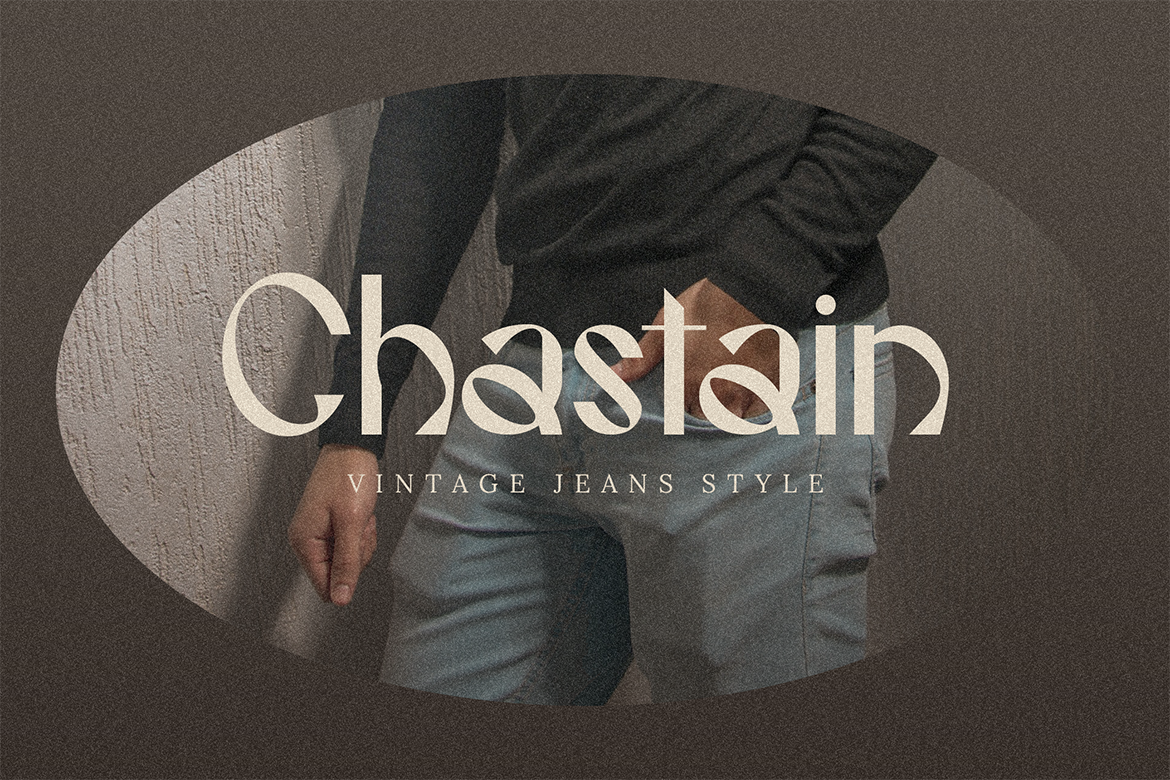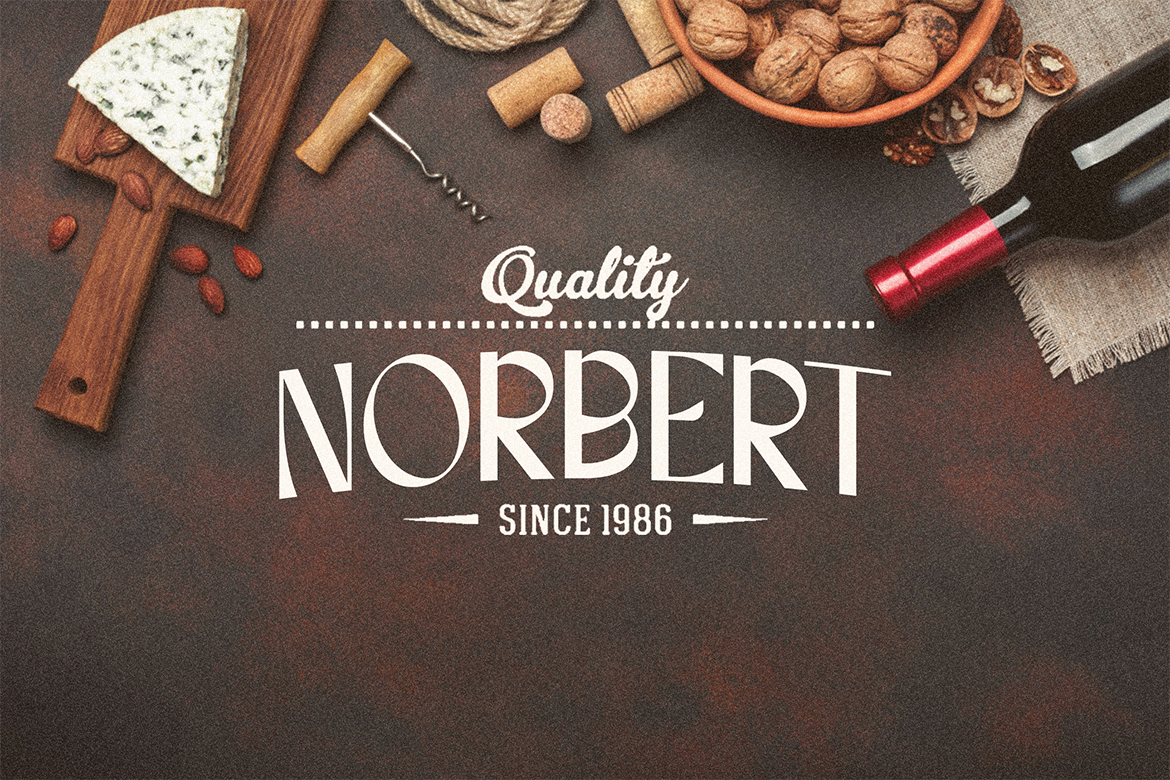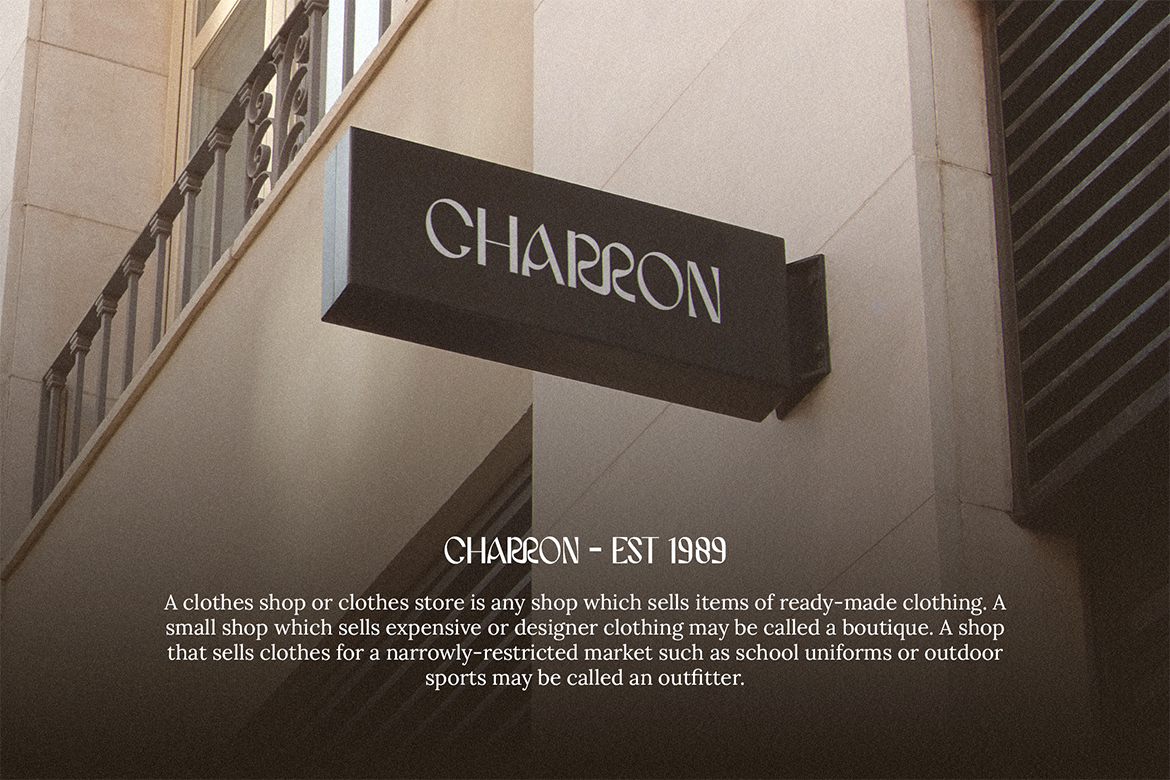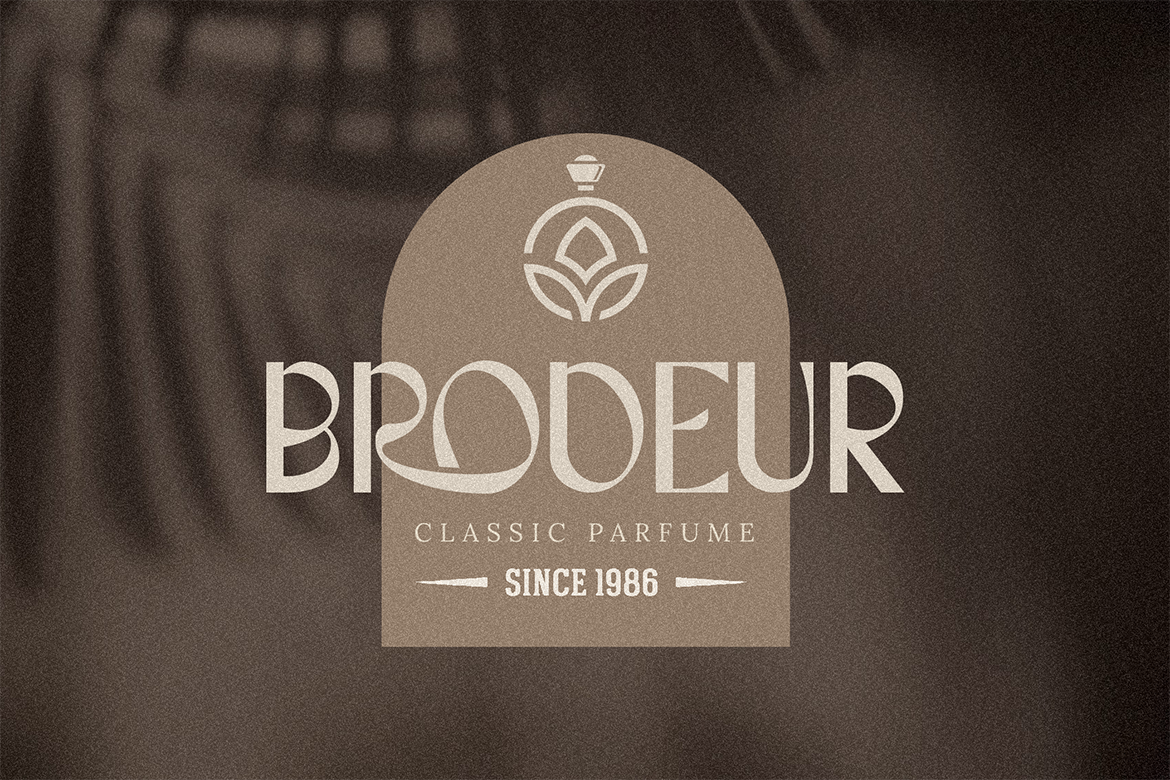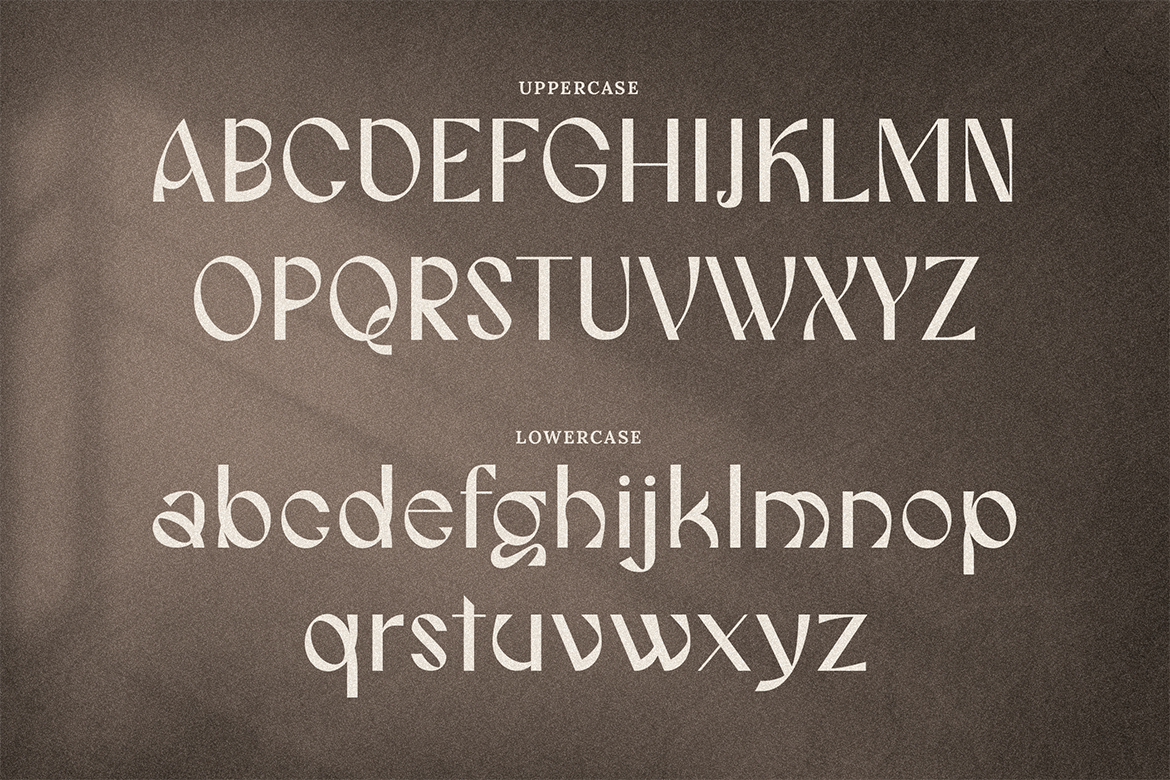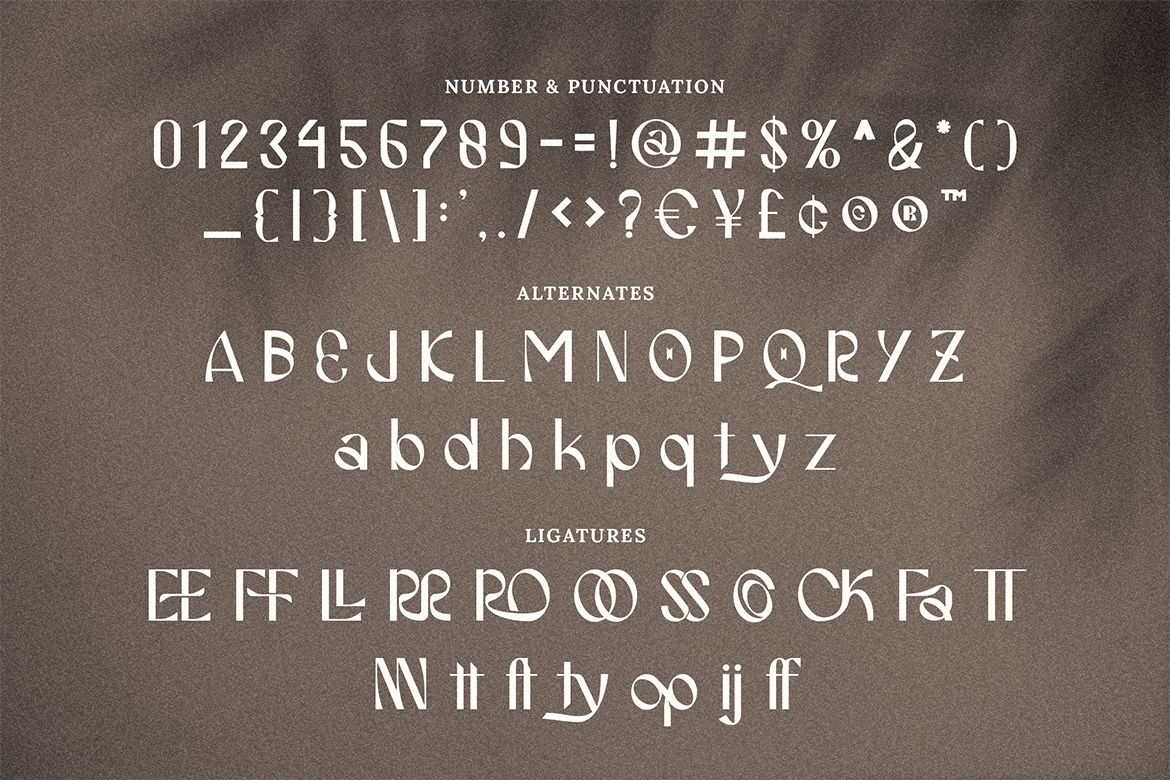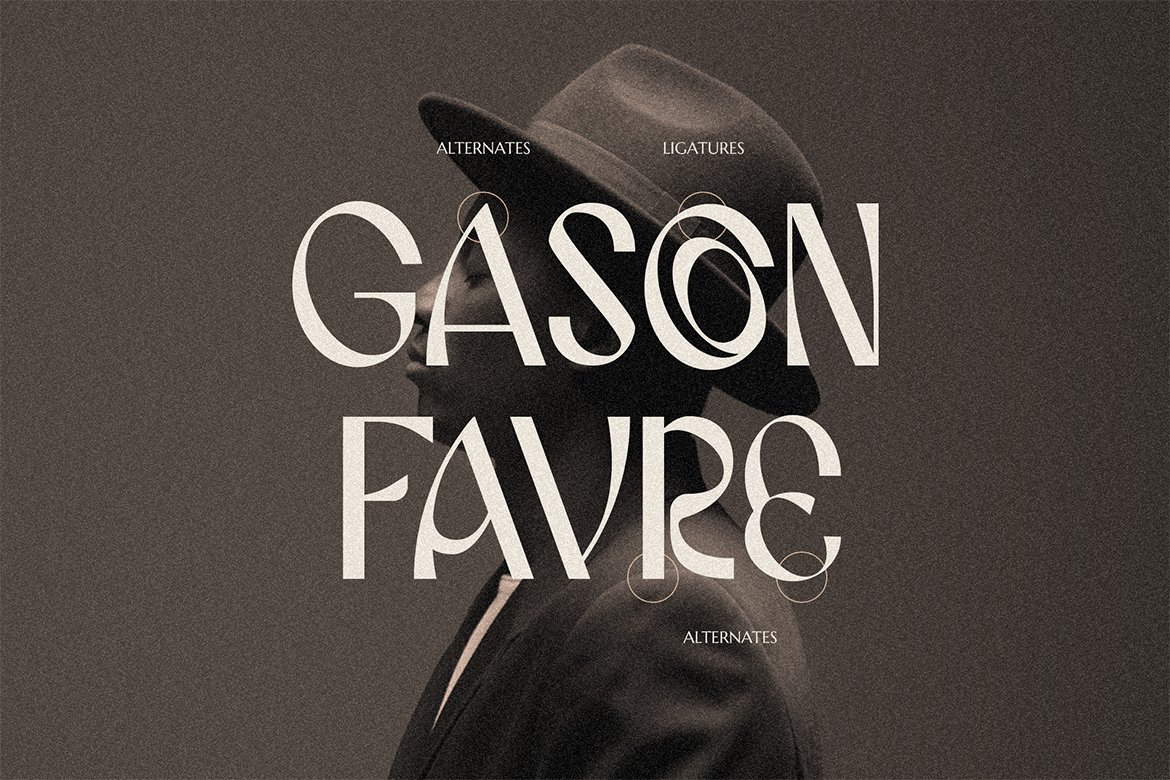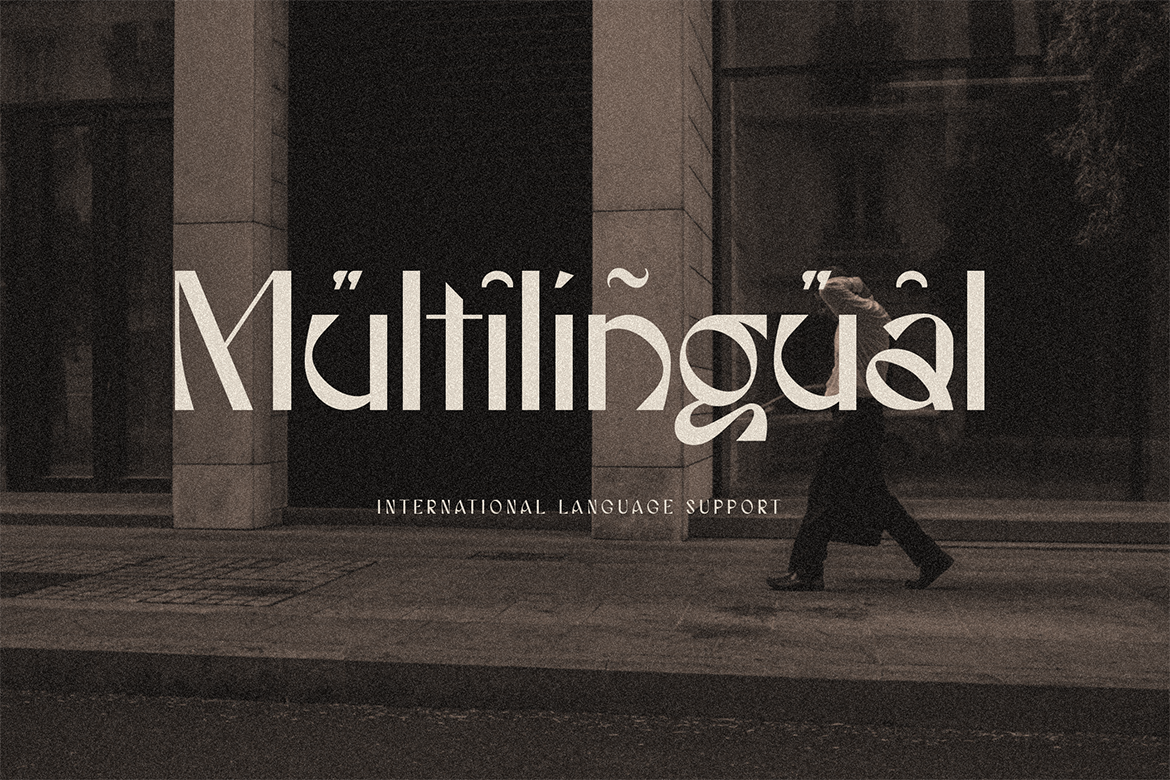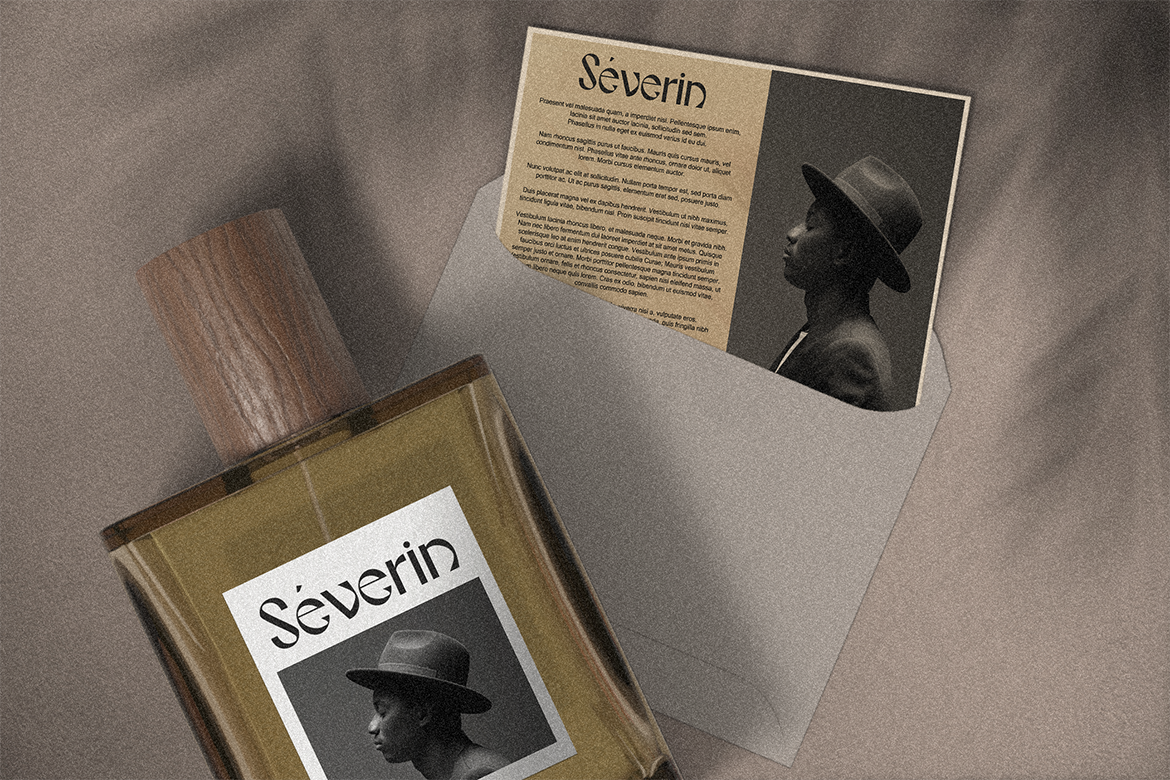
Greenos, Strong modern wans contrasts make this typeface both impressive and readable in a text size that also shows.
Greenos is perfect for branding projects, logos, wedding designs, social media posts, advertisements, product packaging, product designs, label, photography, watermark, invitation, stationery, and any projects that need handwriting taste.
- Fonts include multilingual support for; Afrikaans, Albanian, Czech, Danish, Dutch, English, Estonian, Finnish, French, German, Hungarian, Italian, Latvian, Lithuanian, Norwegian, Polish, Portuguese, Slovak, Slovenian, Spanish, Swedish.
Greenos Display Modern Sans